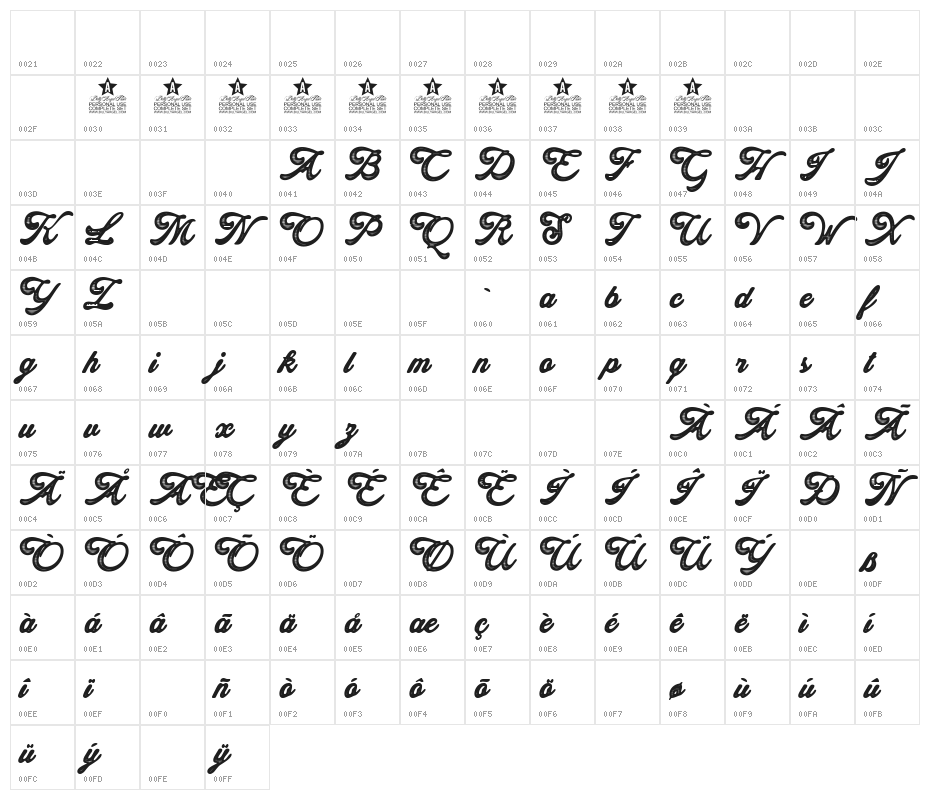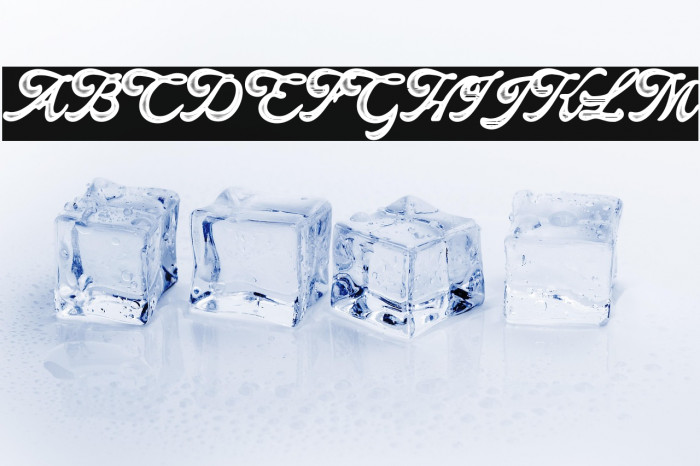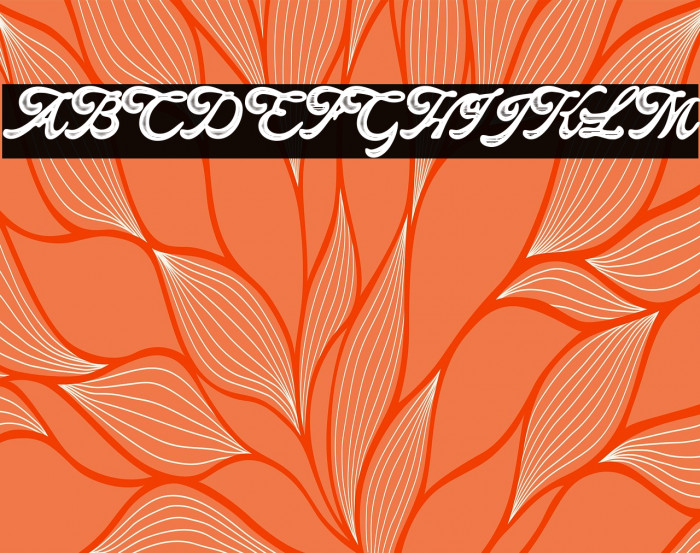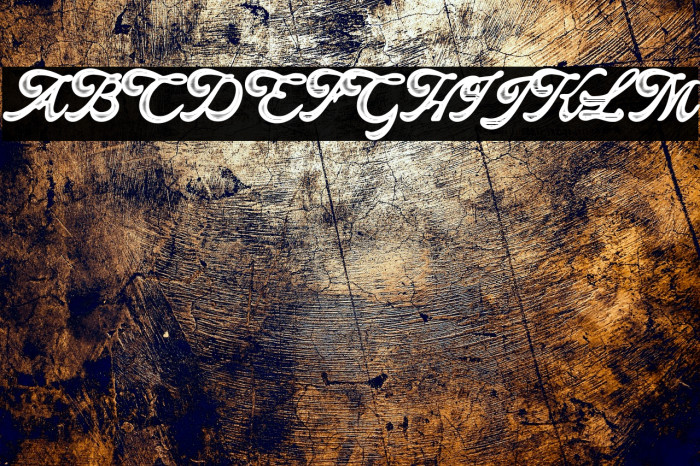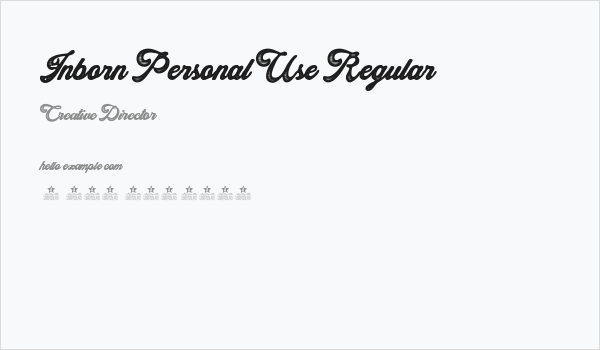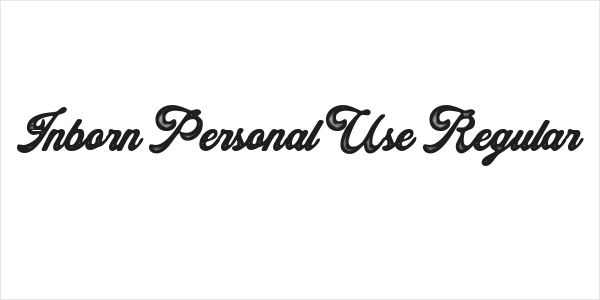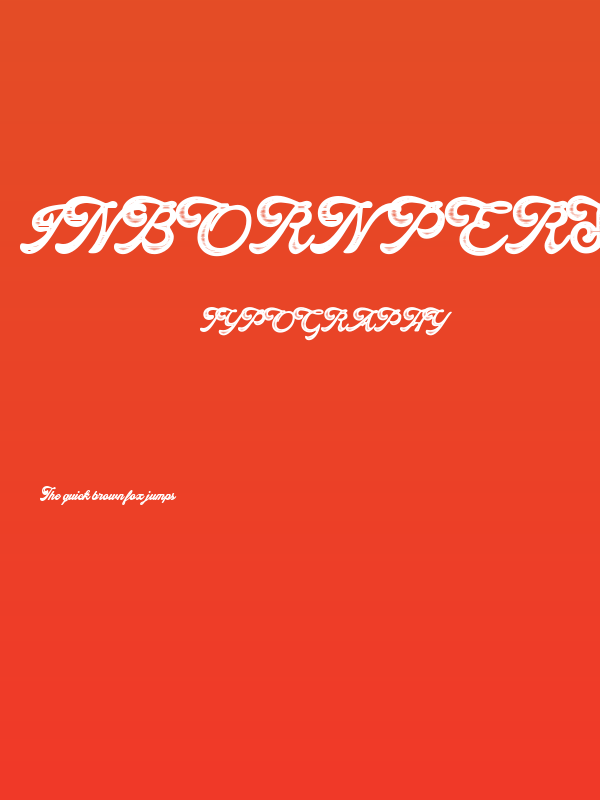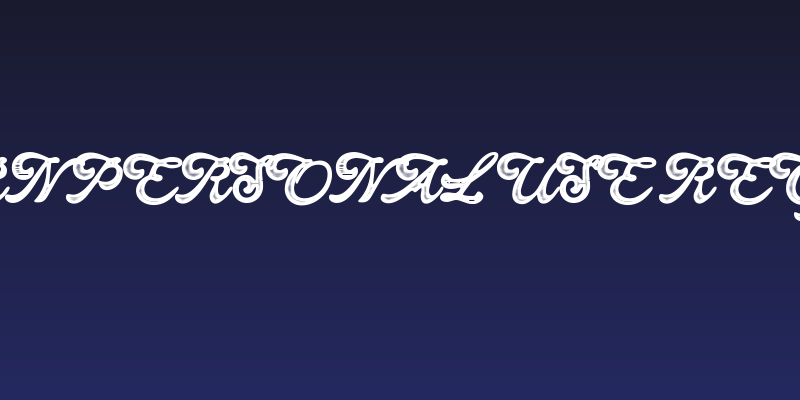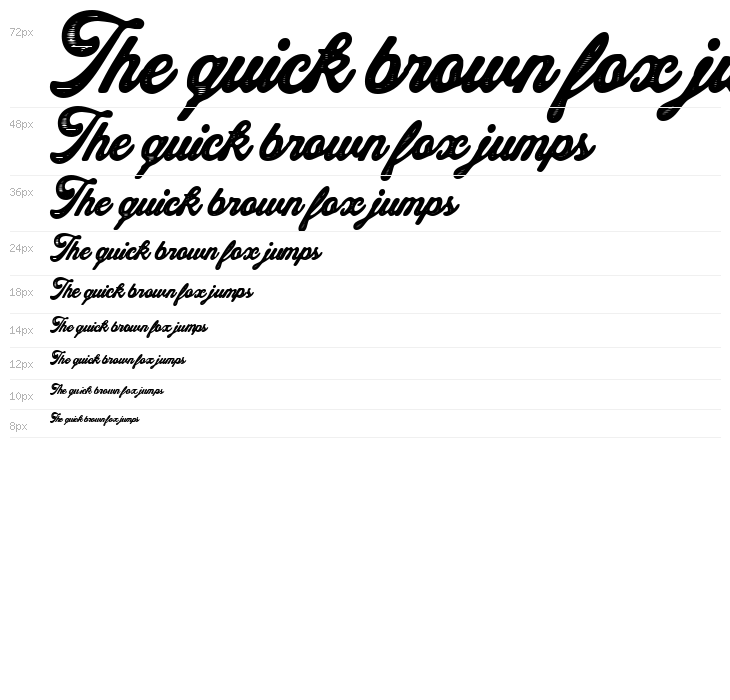
Inborn Personal Use Regular Font
Inborn Personal Use Regular Description
This font features a bold, cursive style with a decorative flair. The uppercase letters are elegantly connected, creating a flowing script that exudes sophistication. The lowercase letters maintain the same connected style, enhancing readability while preserving the artistic touch. The font includes diacritical marks, adding versatility for various languages. The numbers and special characters are designed to match the overall aesthetic, ensuring consistency across all uses. The bold strokes and intricate details make it ideal for eye-catching designs.
| Use Case | Logos, Headlines, Invitations |
| Proposed Projects | Ideal for wedding invitations, branding, logos, and decorative headlines. |